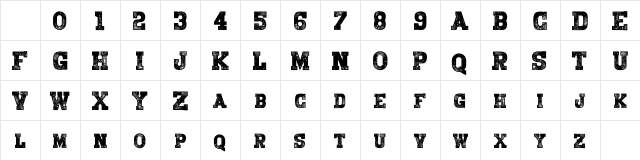
Complete BringMeAWar_Textured Regular glyph index. Displaying only characters natively supported by BringMeAWar_Textured Regular font.
BringMeAWar_Textured embraces imperfection - its rough, textured character adds raw authenticity to designs that want to feel lived-in and unconventional.
Pro Tip: Use BringMeAWar_Textured at larger sizes where the texture and irregularity of each letterform can be clearly seen - it loses its character at small sizes.